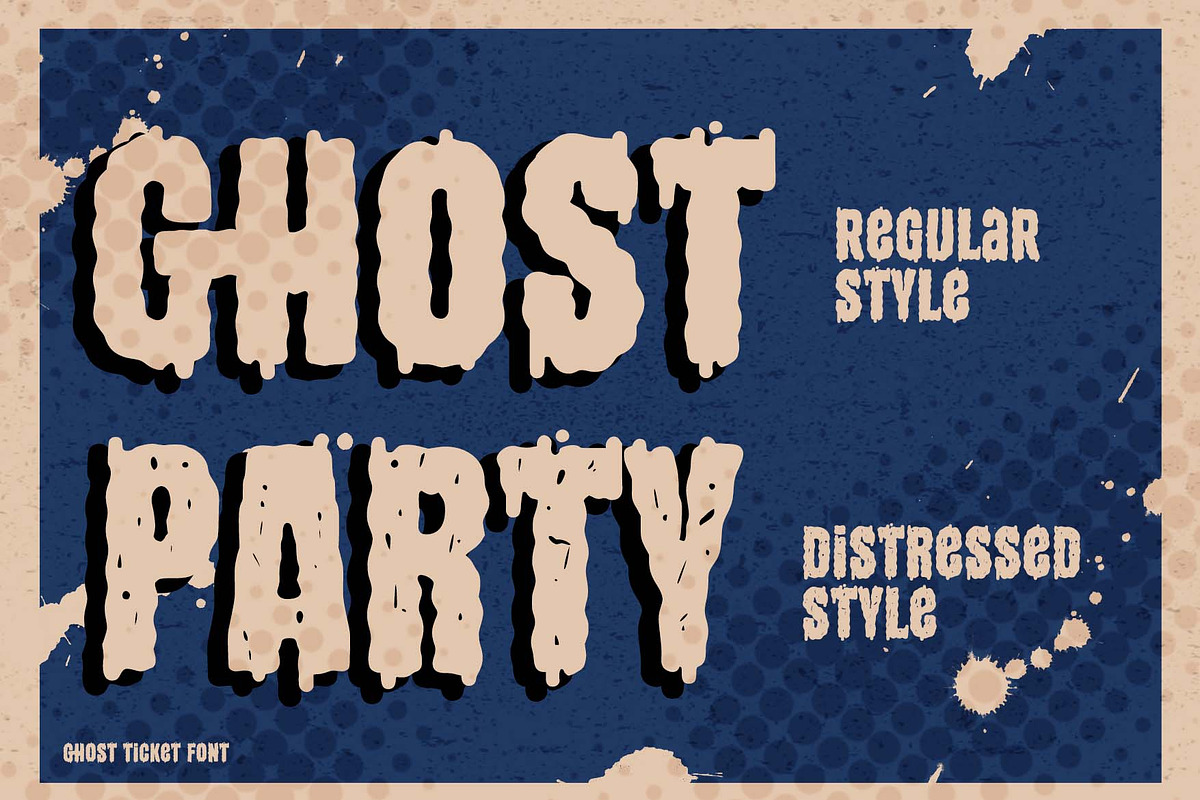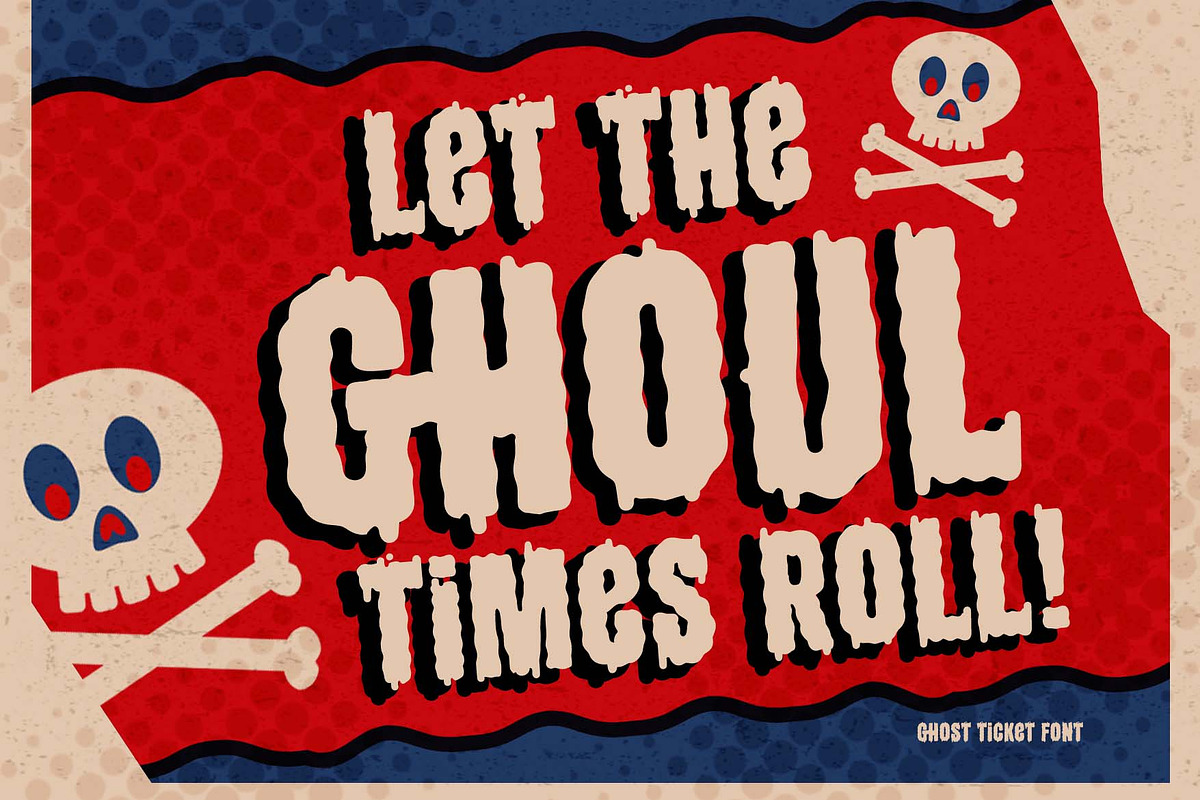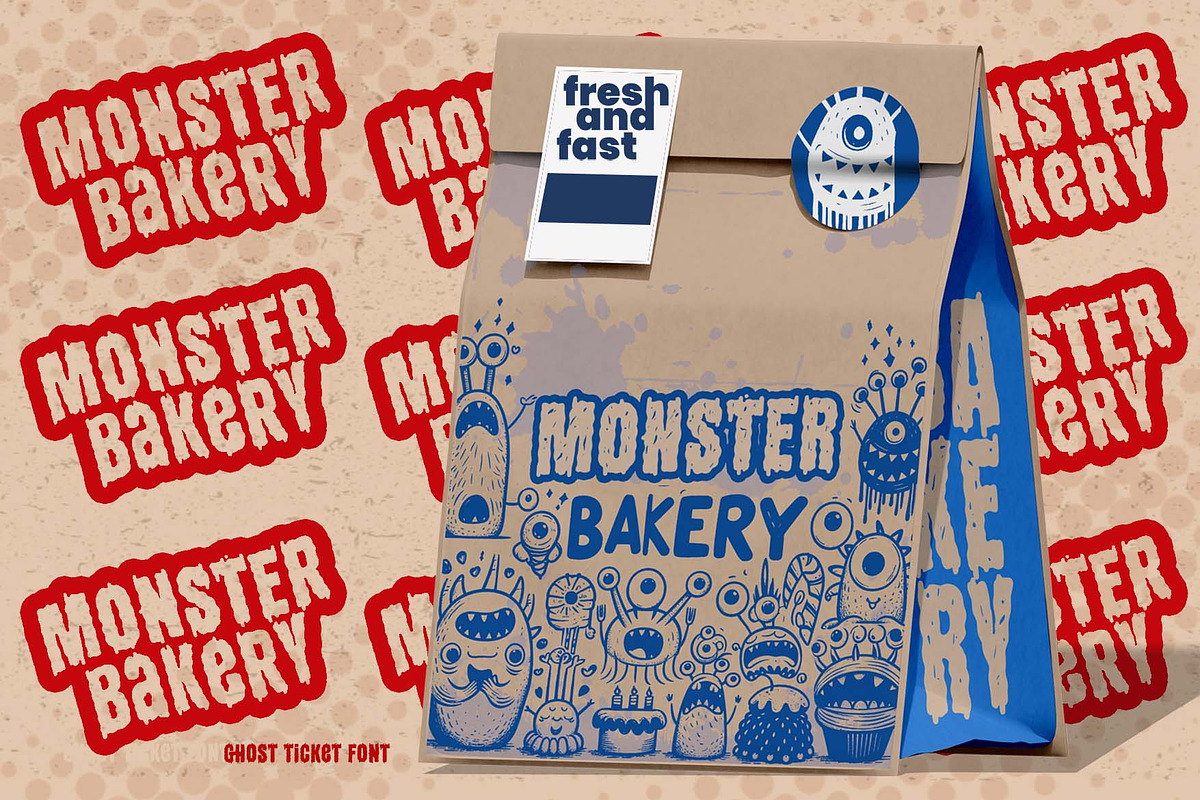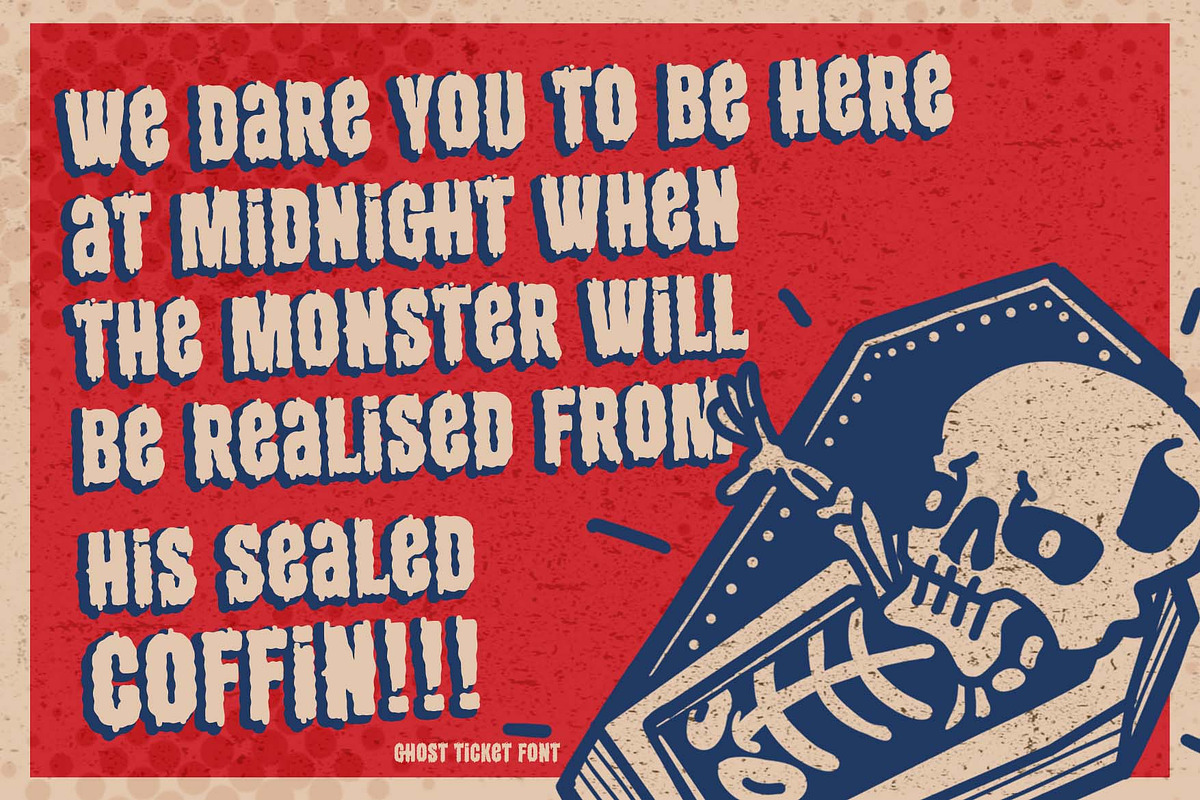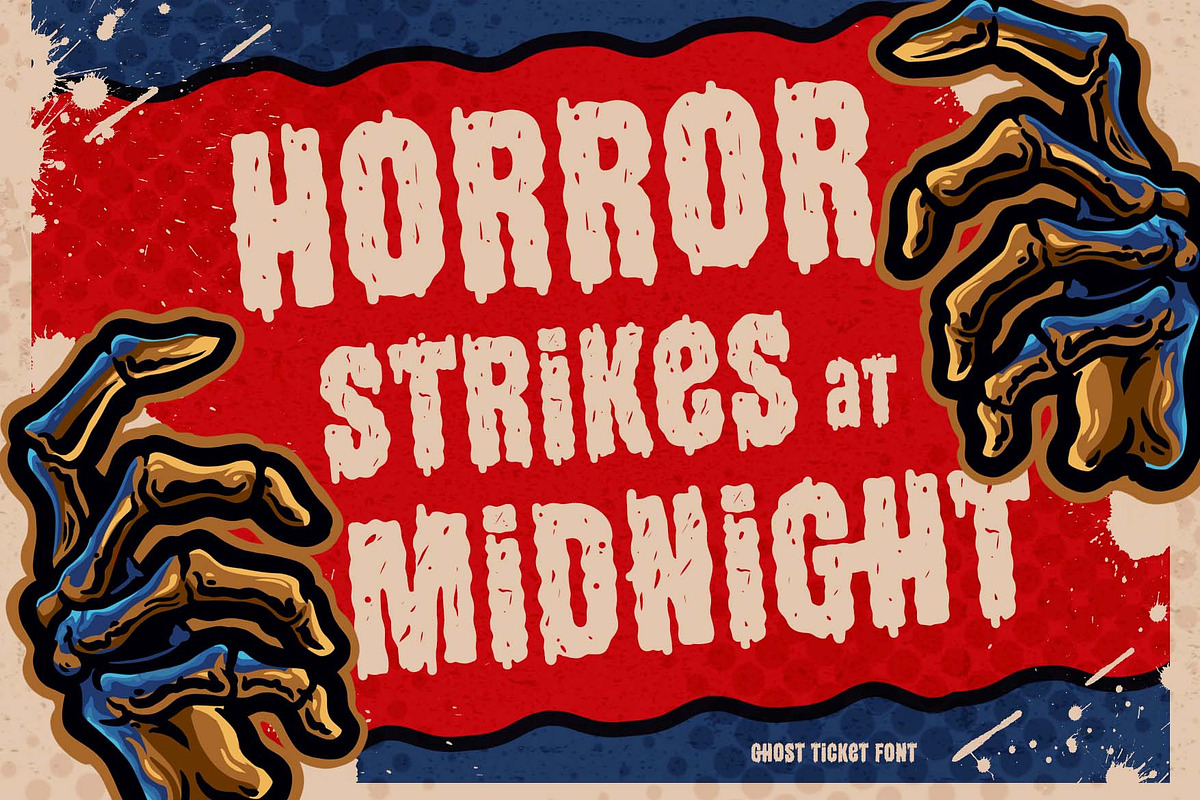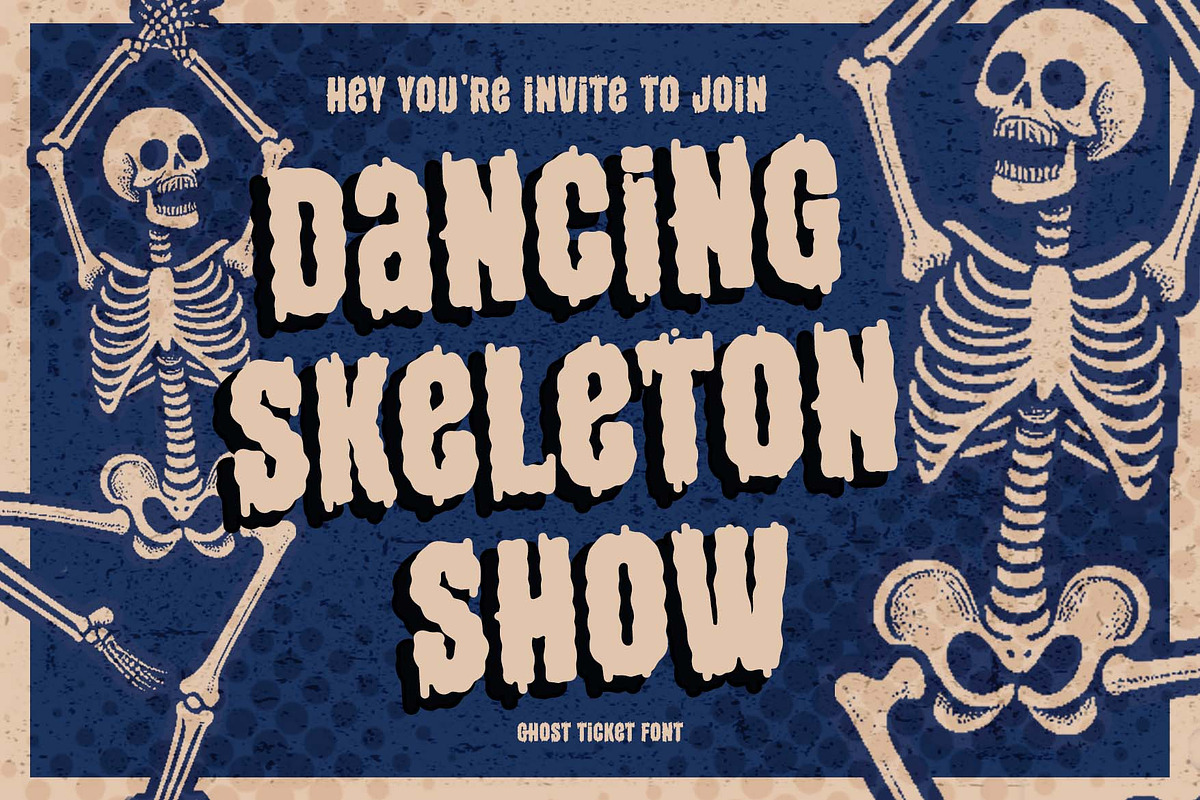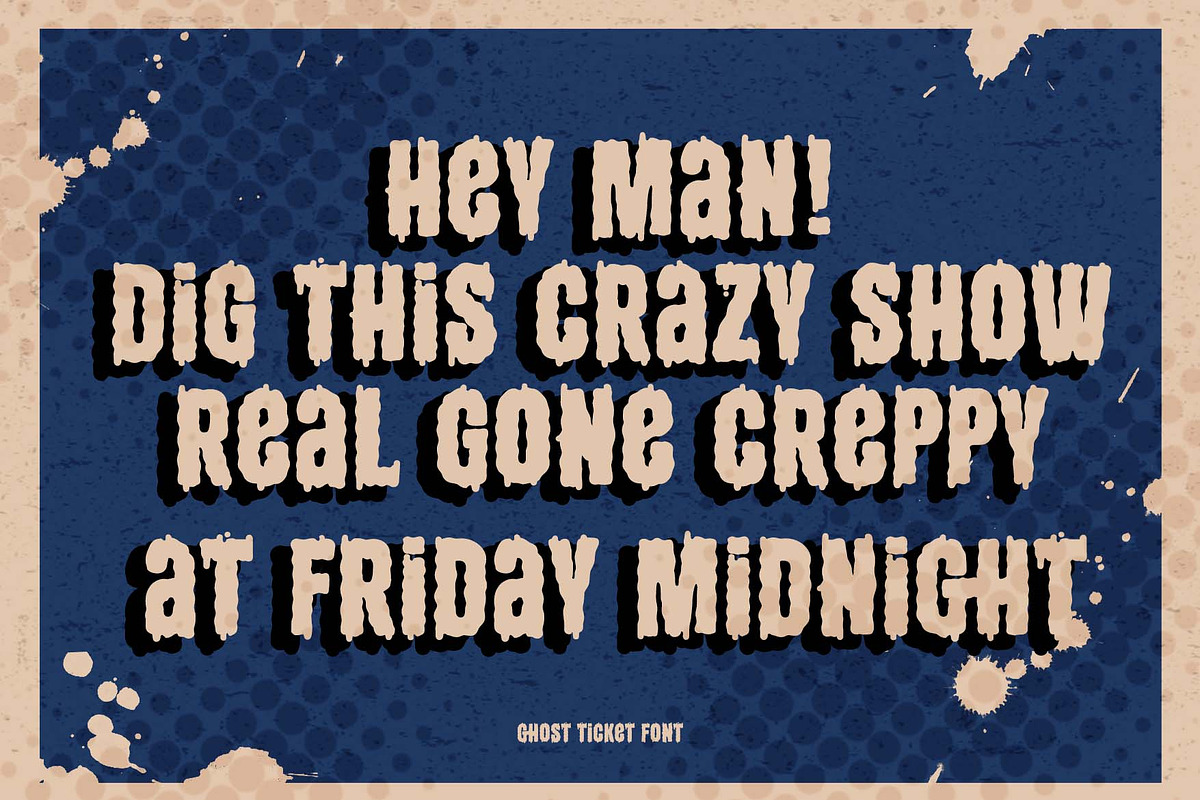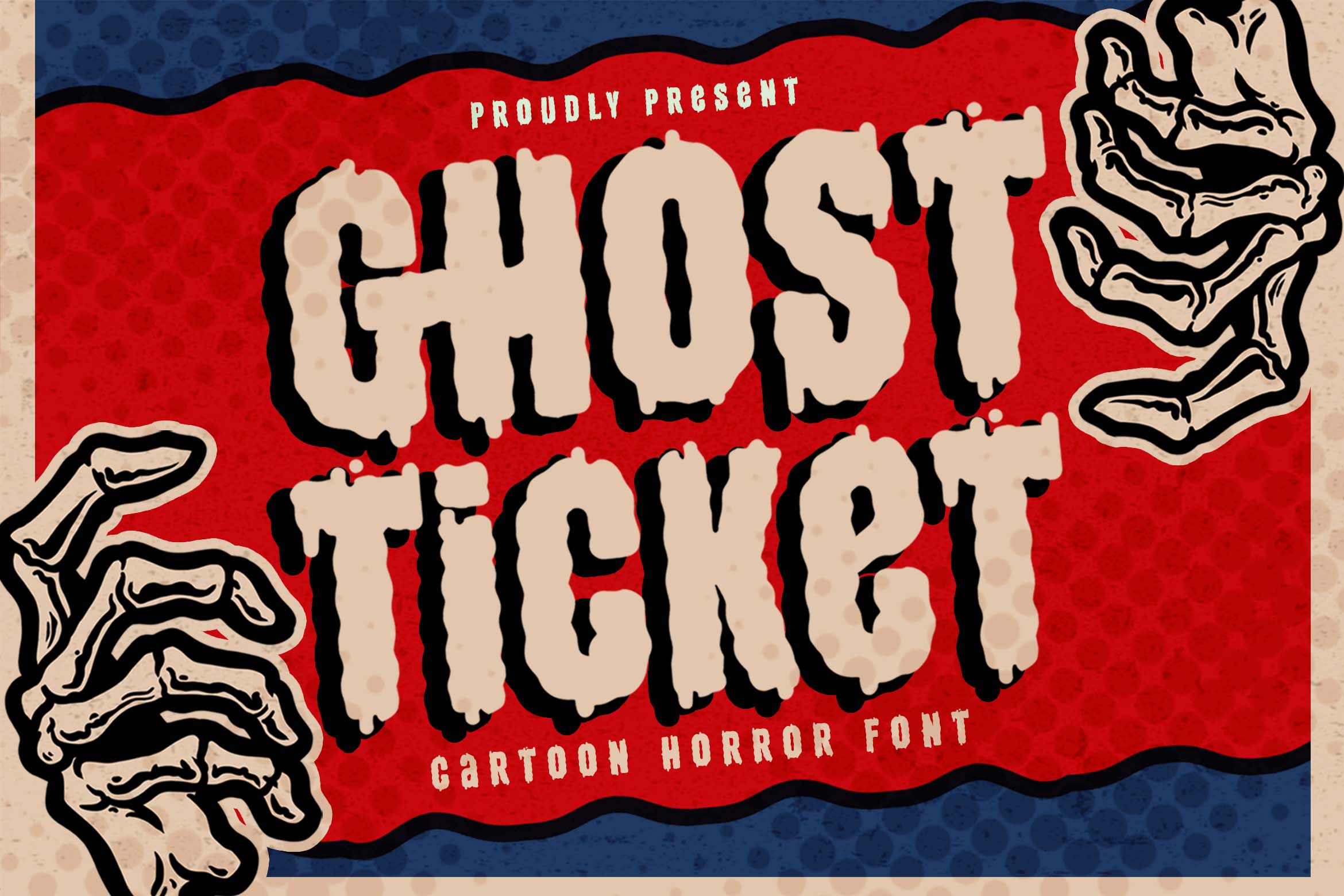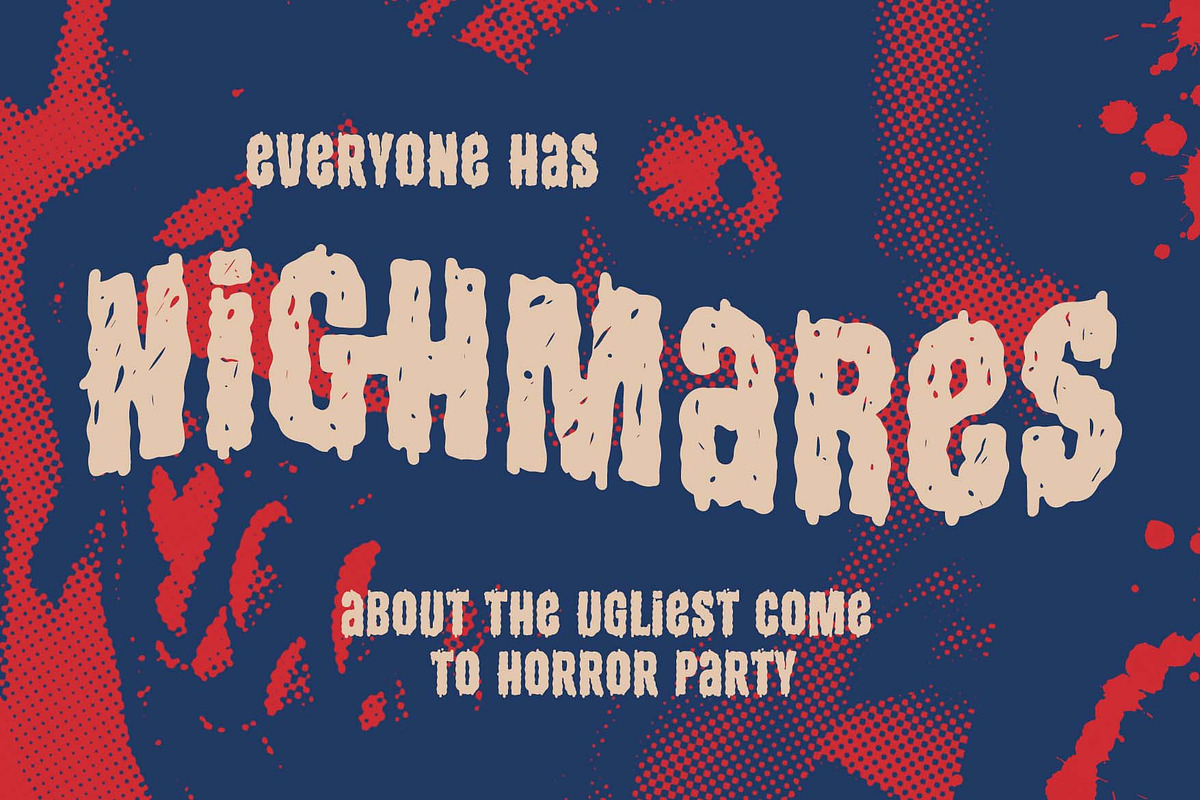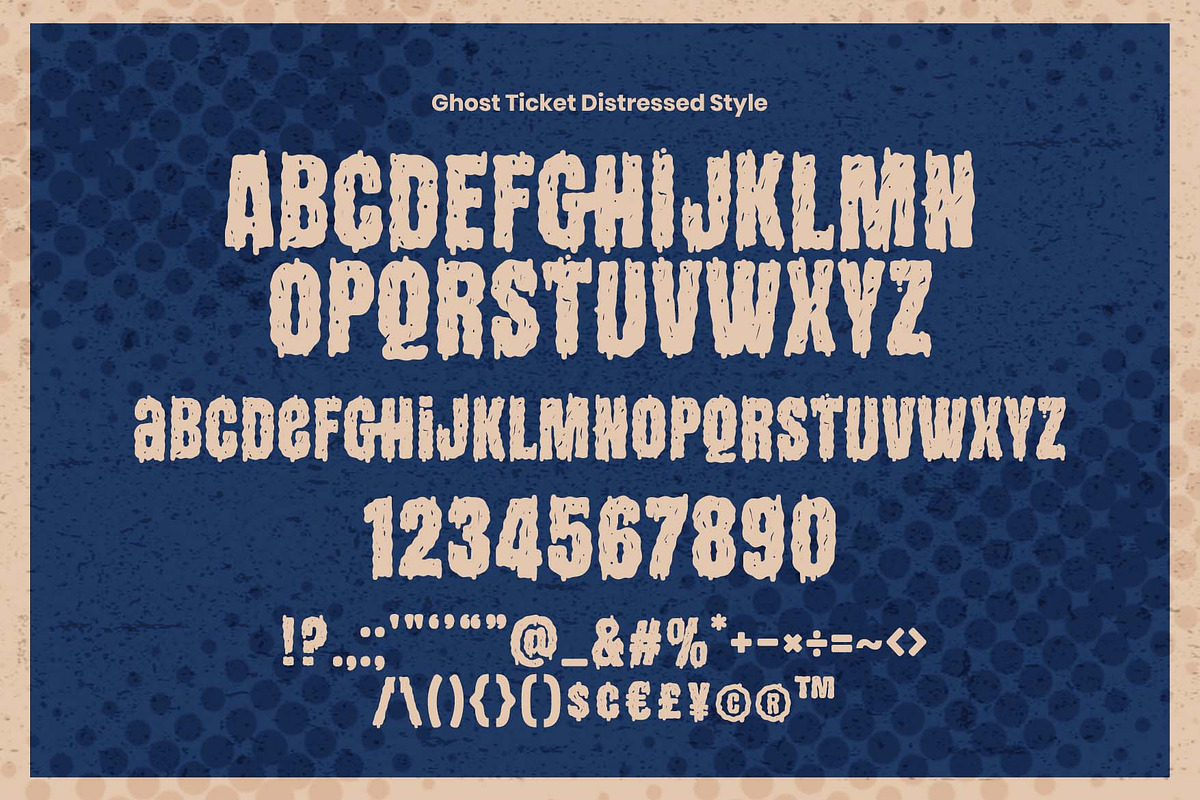
Ghost Ticket a Cartoon Horror Font
Hello Everyone! Ghost Ticket has been released for those of you who are looking for a Horror Cartoon style font, The font is inspired by retro and classic in the headline or cover from horror comic. with a few combine to turn them into a bit of a handrawn and drip style. Unleash your great creativity with Ghost Ticket Font, perfect for used to any projects with easy-to-read character, playful and bold font for your project!.
Ghost Ticket Font very suitable for Logotype, Book Cover, Poster Invitation, Gift Card, Halloween Gretting Card, Poster, Merchandise, Packaging Label and much more.